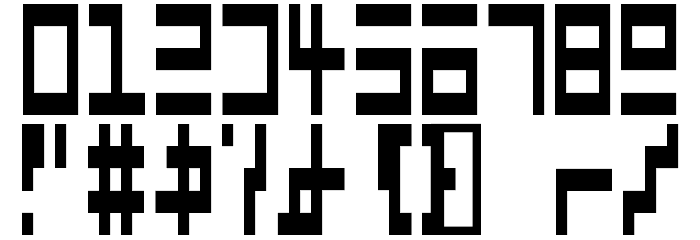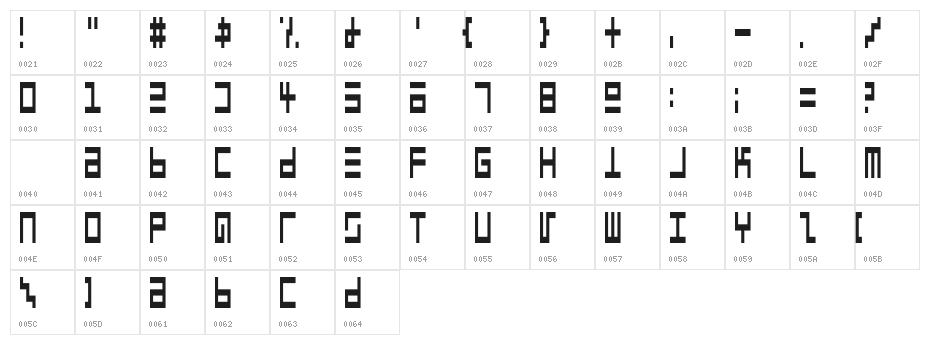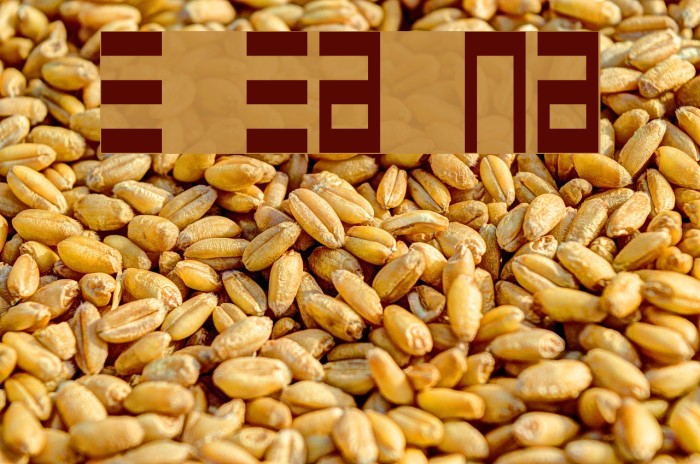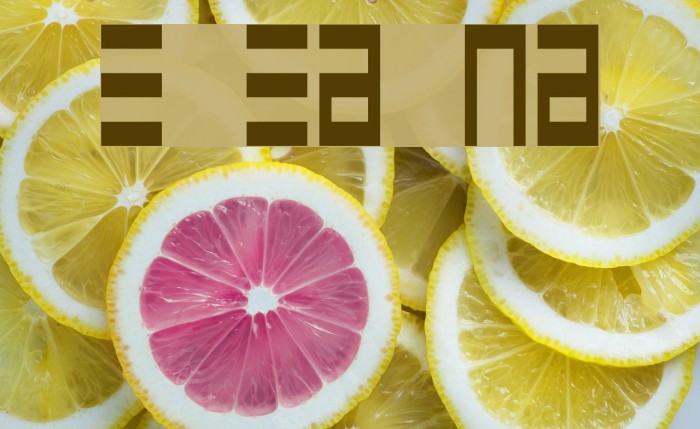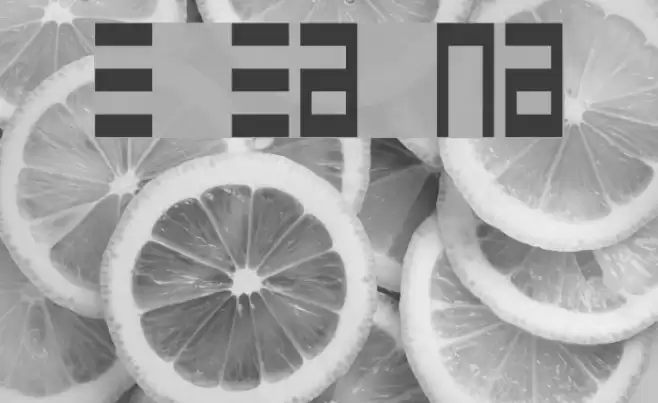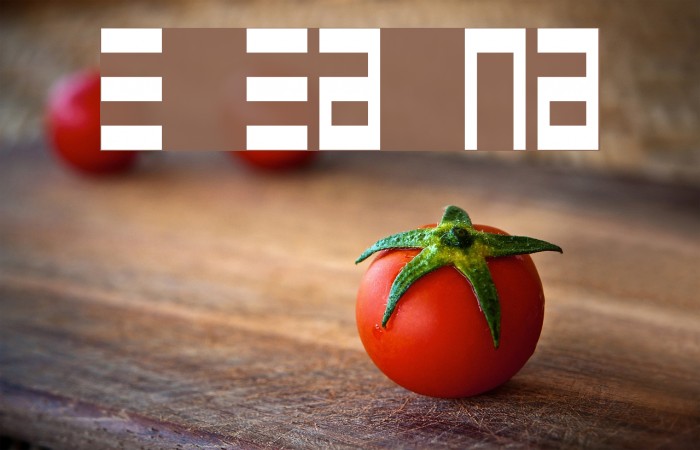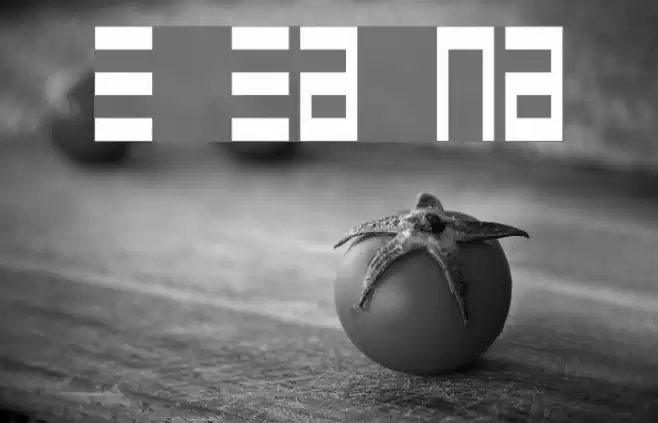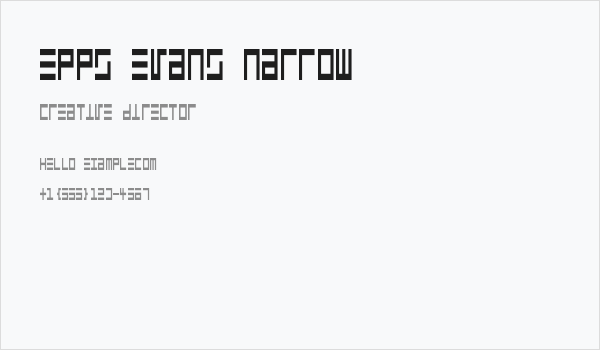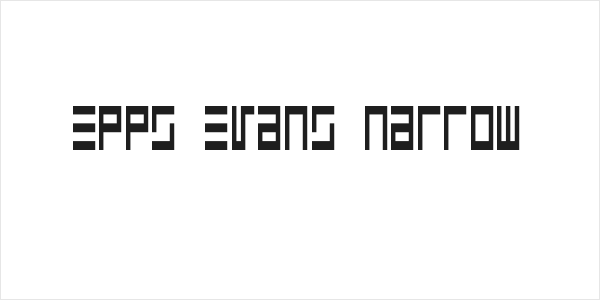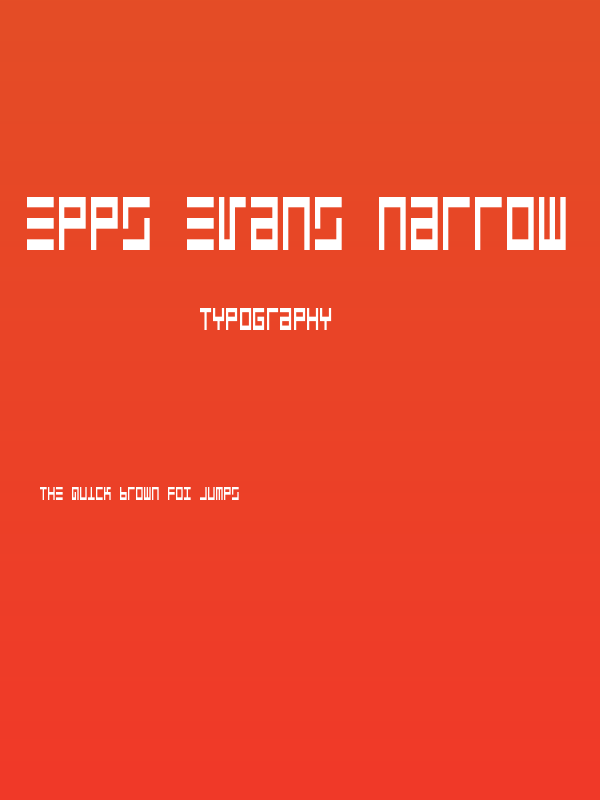
Epps Evans Narrow Font
Epps Evans Narrow Description
This font features a geometric and blocky design, characterized by its narrow and angular letterforms. The uppercase and lowercase letters share a consistent height, creating a uniform appearance. The font's structure is defined by straight lines and right angles, giving it a futuristic and digital feel. The numbers and special characters maintain the same angular style, ensuring visual consistency across all glyphs. The overall design is bold and impactful, making it suitable for attention-grabbing headlines or digital-themed projects.
Proposed ProjectsIdeal for digital interfaces, tech-themed branding, video game graphics, and futuristic posters.